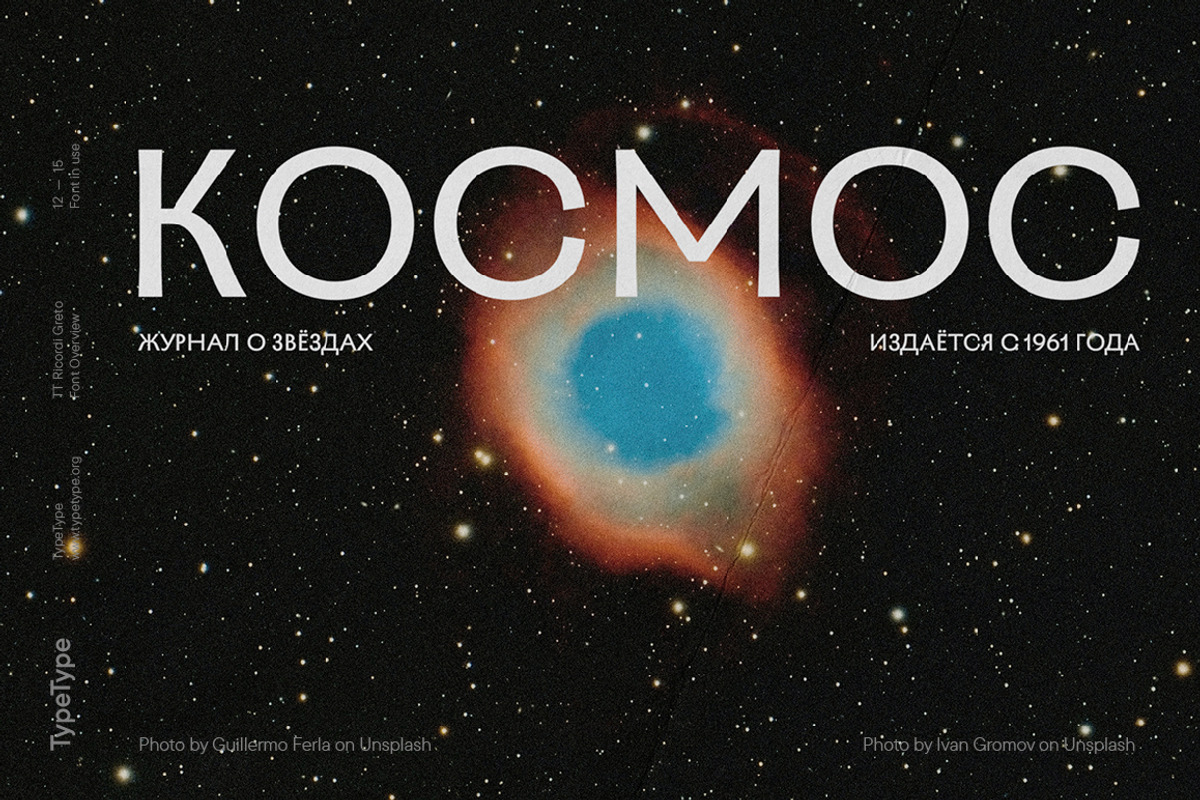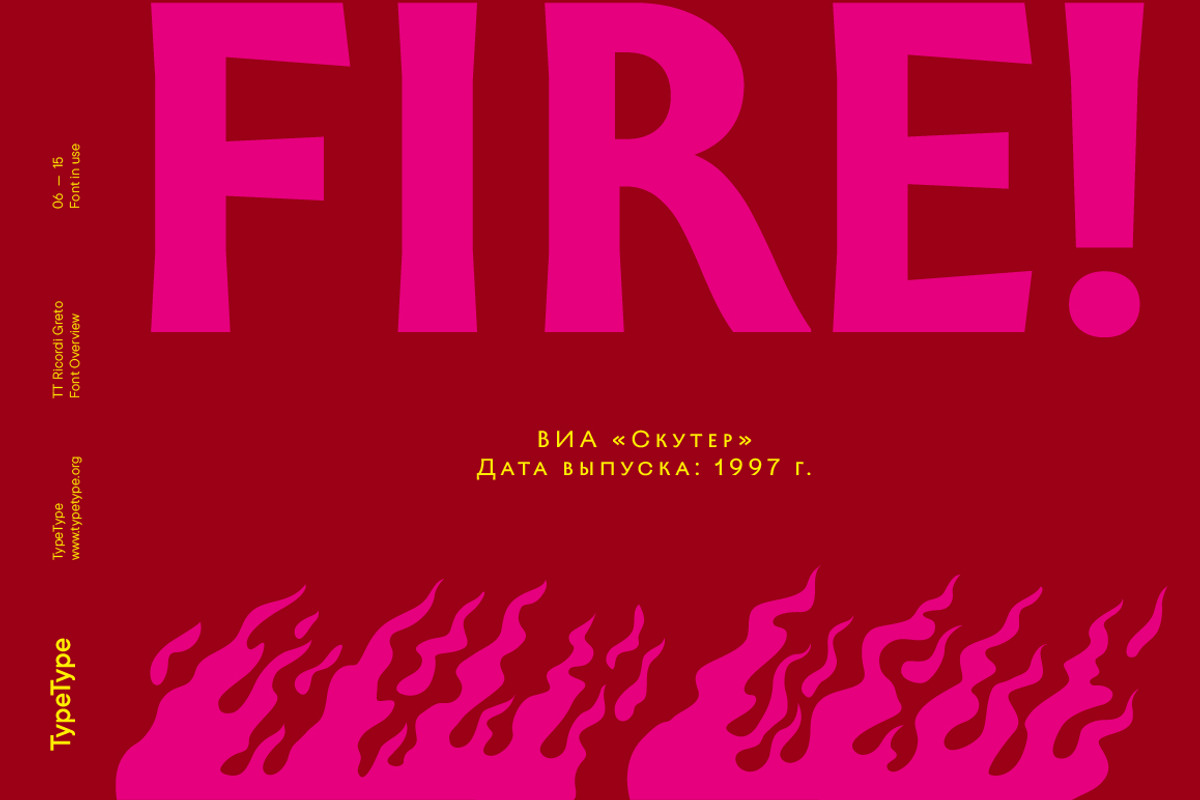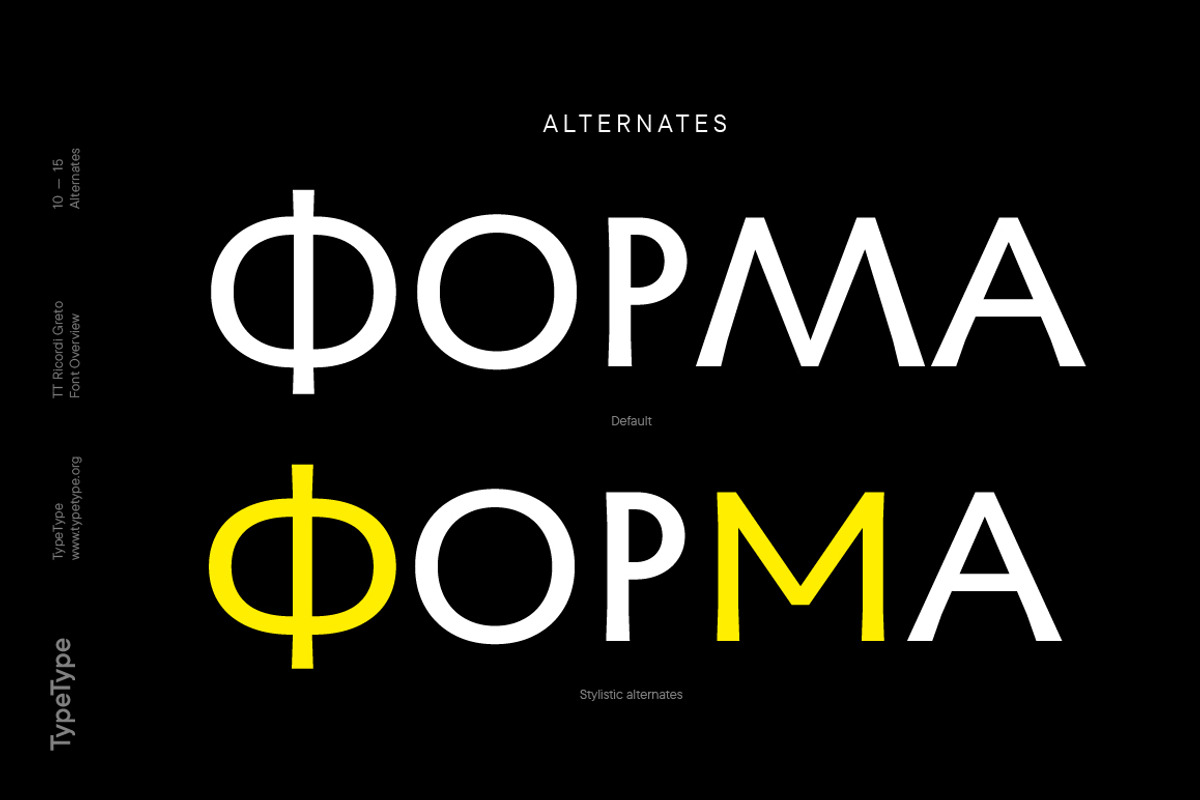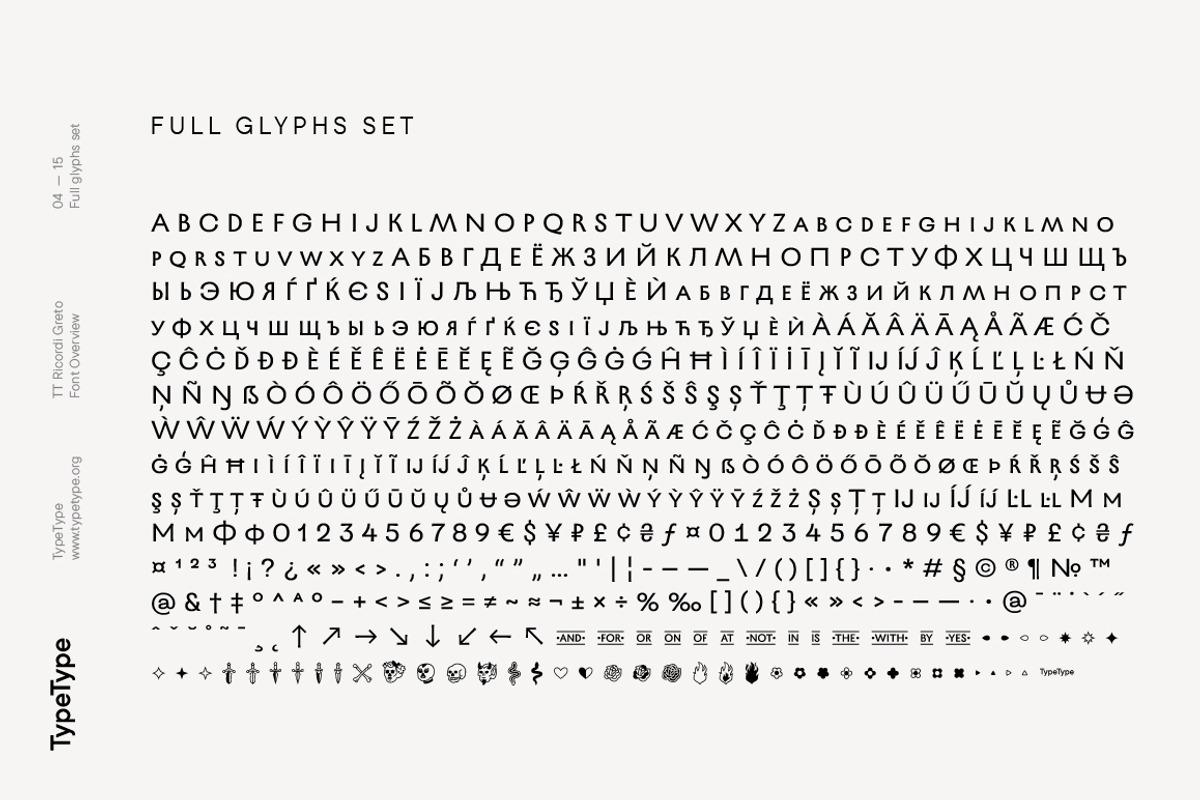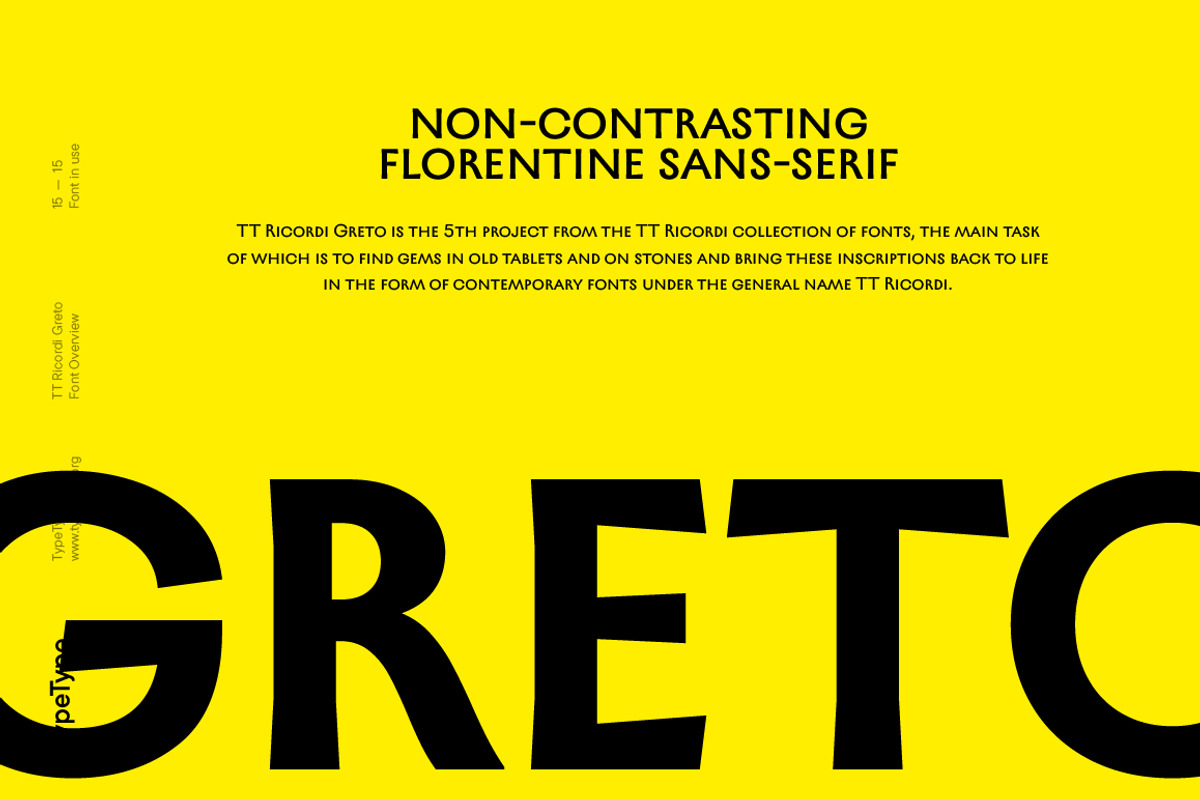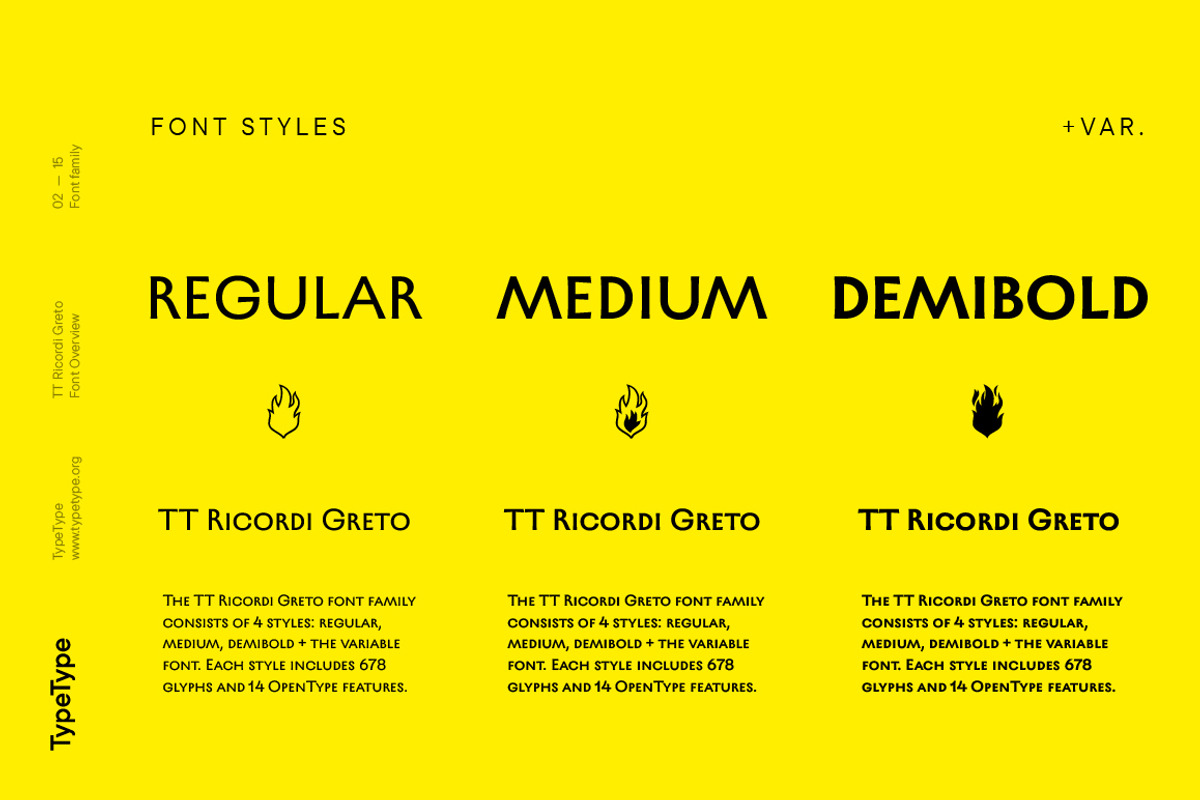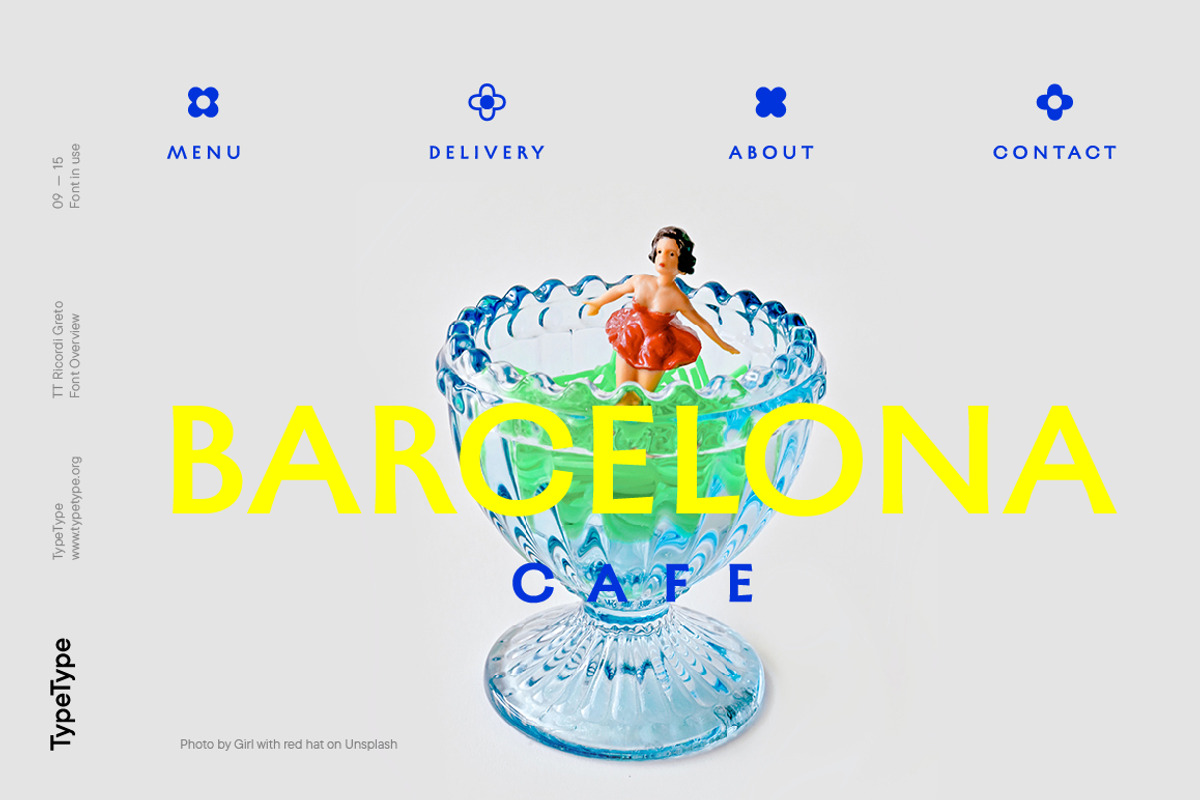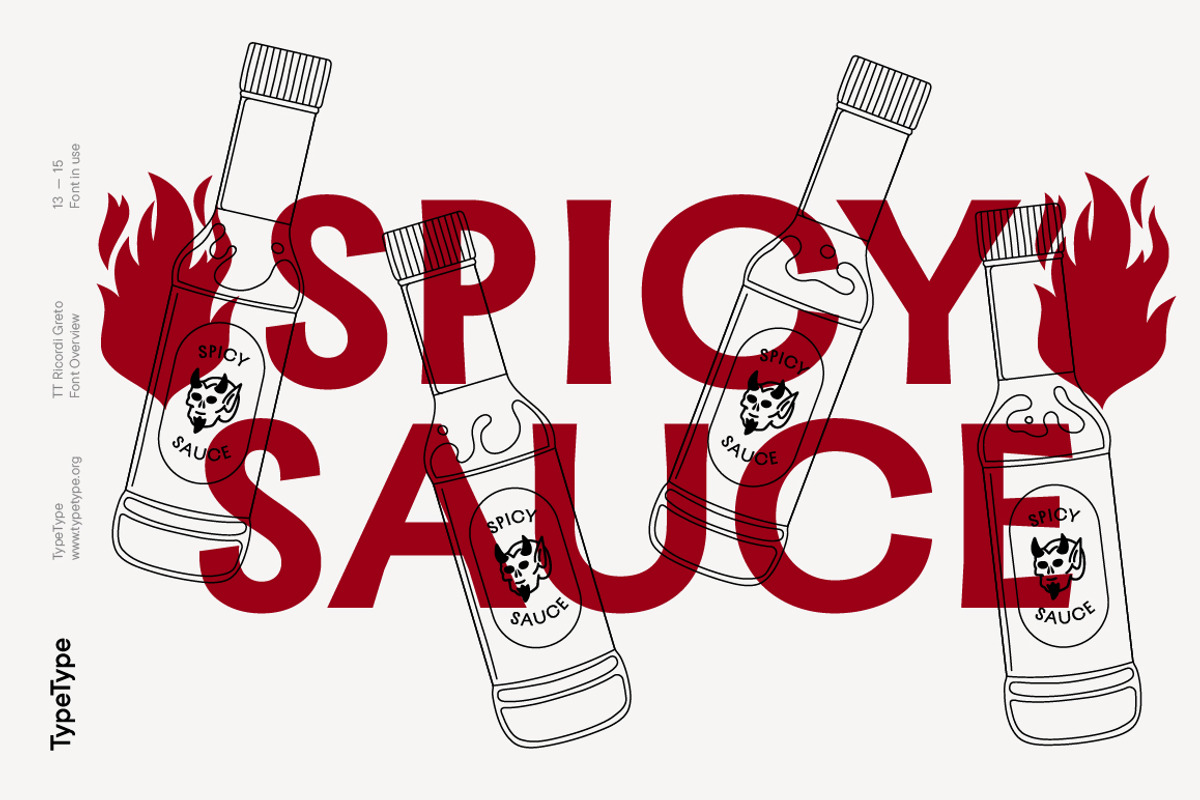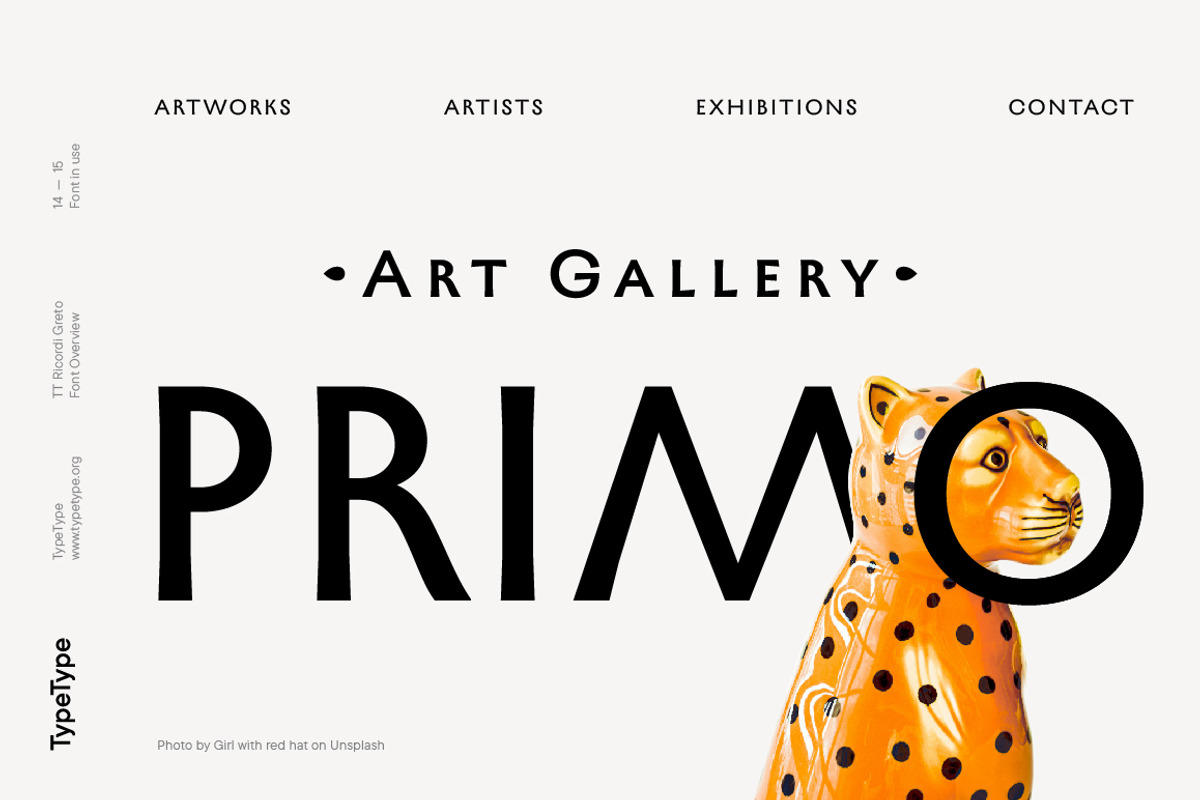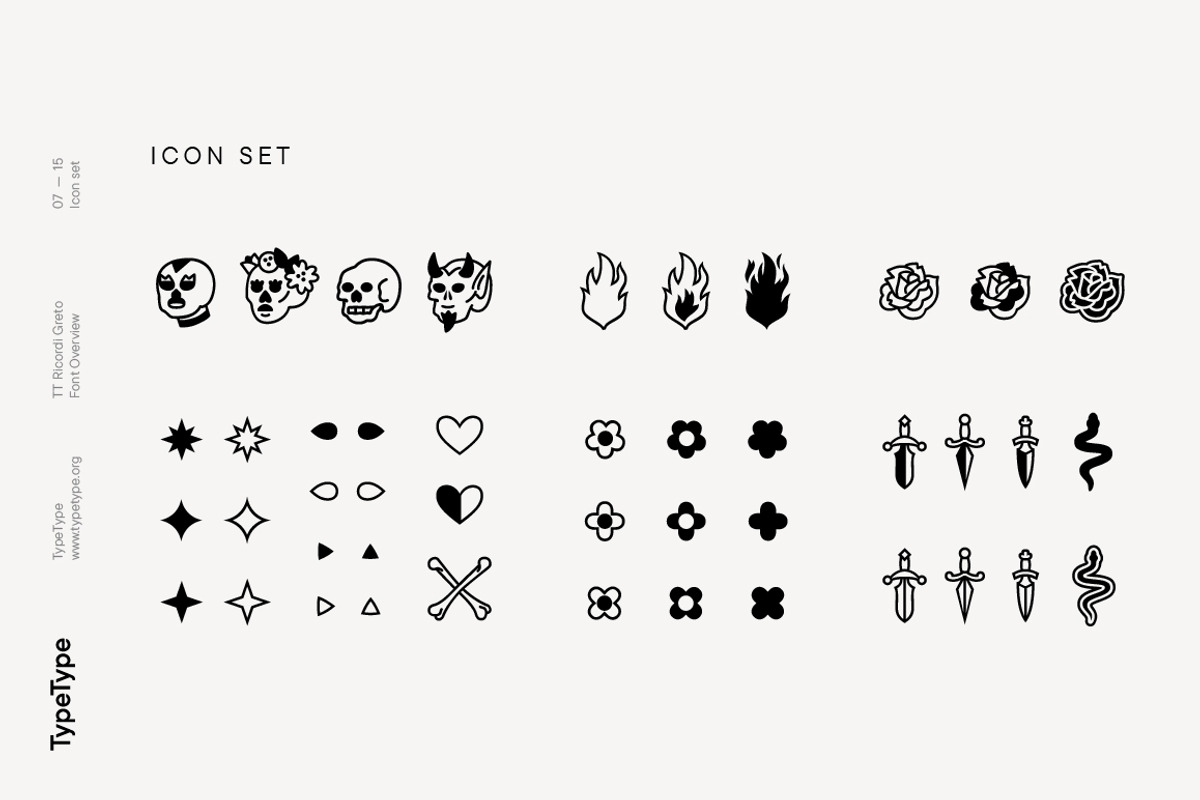
TT Ricordi Greto
TT Ricordi Greto is the 5th project from the TT Ricordi collection of fonts, the main task of which is to find gems in old tablets and on stones and bring these inscriptions back to life in the form of contemporary fonts under the general name TT Ricordi.
TT Ricordi Greto is Kseniya Karataeva’s original experimental project, inspired by a floor plaque dating from 1423 found in the Basilica di Santa Croce, Florence. When working on the typeface, we wanted to do something new and modern, but at the same time find details or artifacts in the source that could be exaggerated to the maximum.
TT Ricordi Greto is a non-contrasting Florentine sans-serif with dynamic proportions and a hint on what would be serifs. The main features of the typeface are the closed aperture, dynamic proportions, and the combination of historical forms with modern visual solutions, flowing terminals with curling dash ends and flared ends, and subtle serifs that hint at the historical material.
Another feature of the typeface is a large set of graphic icons (characters and objects), margin markers (flowers, stars and drops) and thirteen catchwords. All icons and spacing have been carefully selected and rendered in order to best match the visual plasticity of the font and interact well with it.
The TT Ricordi Greto font family consists of 4 styles: regular, medium, demibold + the variable font. Each style includes 678 glyphs and 14 OpenType features. In addition to wide language support (extended Latin and basic Cyrillic), each style has two sets of figures and currencies (proportional and tabular), a set of arrows alternative versions of the letter M (flared and straight versions) and the letter Ф (round and oval) and the same a set of icons, margin markers and catchwords.
TT Ricordi Greto OpenType features list: aalt, ccmp, locl, numr, ordn, tnum, pnum, case, ss01, ss02, ss03, ss04, ss05, calt.